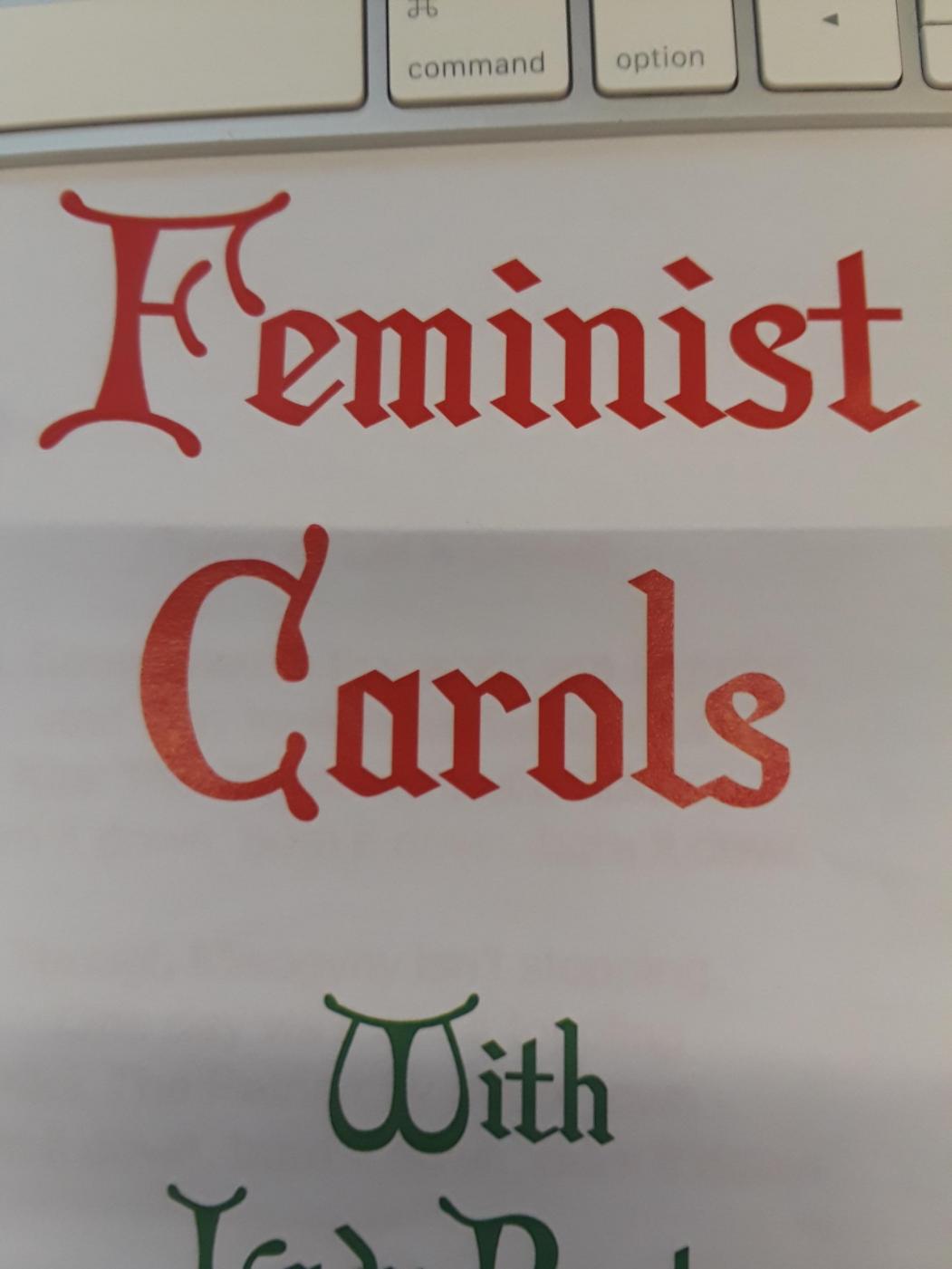
What is this font from LPJ?
My boss gave me this leaflet they made last year so I could use this font for a different graphic, but no one knows which font it used and I haven't been able to find it. Does anyone know what this font is? The W looks similar to the W from 1495 lombardes normal.